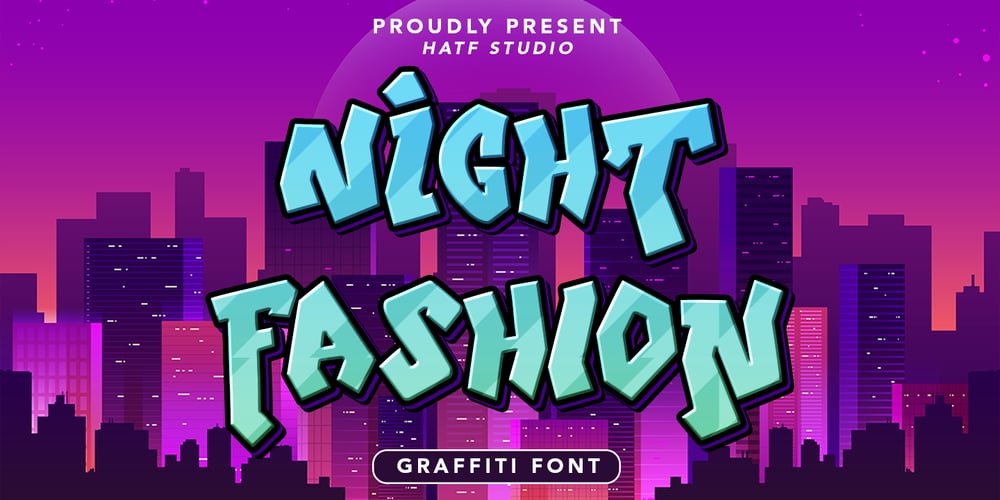
Night Fashion Font Family was designed by Asep Rendi and published by Hatftype. Night Fashion contains 1 styles and family package options. Night Fashion – Street Art Graffiti Font is a free style font that has the characteristics of street art that shows freedom and is filled with unique characters.Features : • Character Set A-Z • Numerals & Punctuations (OpenType Standard) • Accents (Multilingual characters) • Ligature • AlternateThere it is.I really hope you enjoy it.